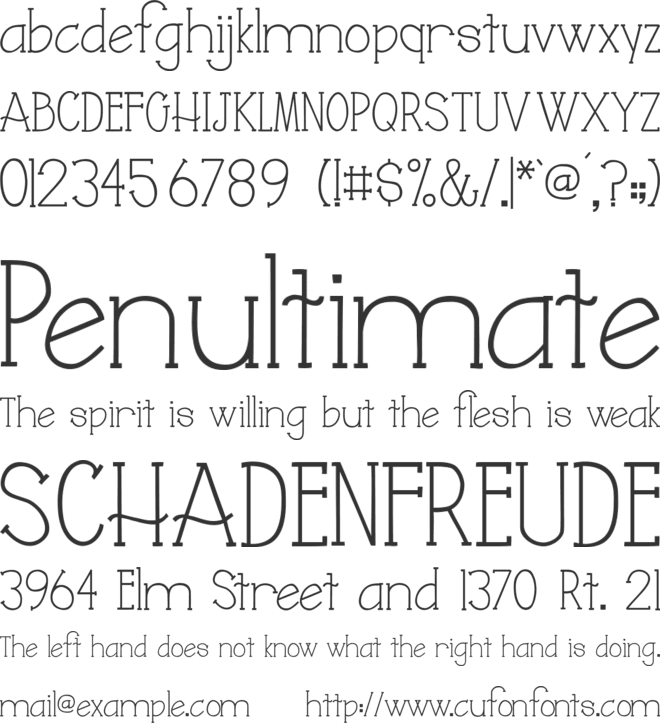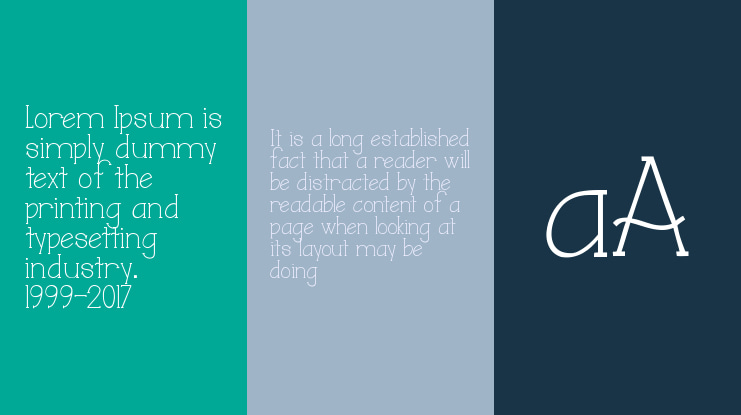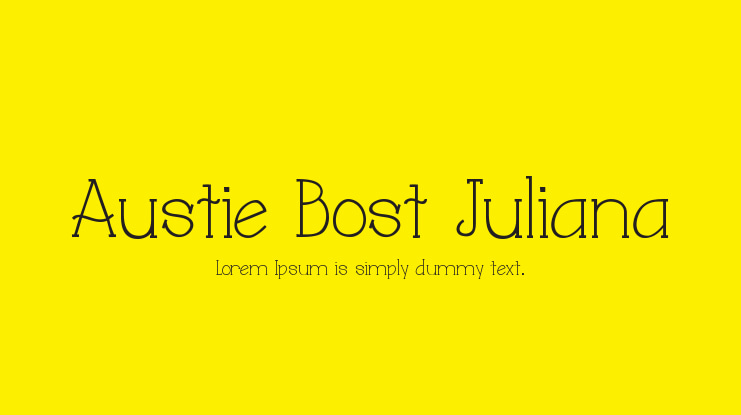
Austie Bost Juliana Font
Austie Bost Juliana is a balanced design, but with fun letter tilts. It's a little bit old-fashioned, and a little bit modern. :)